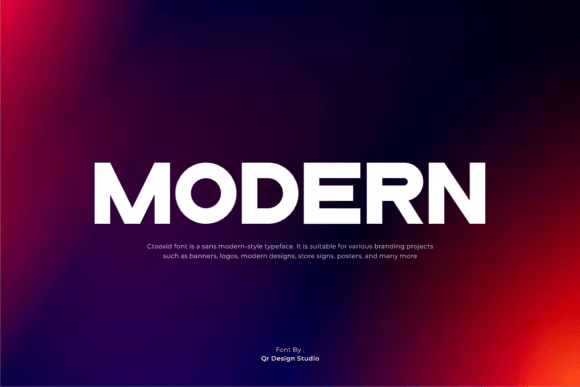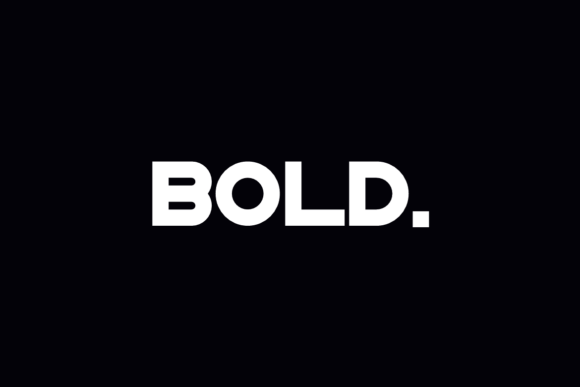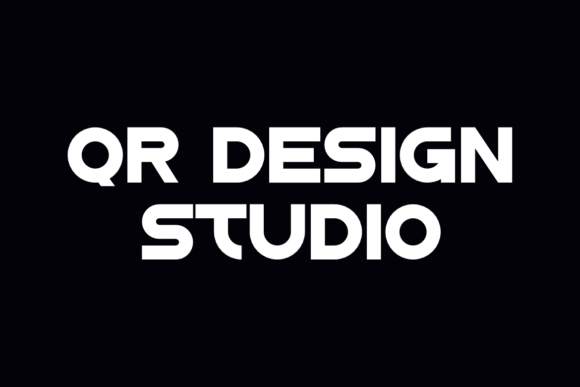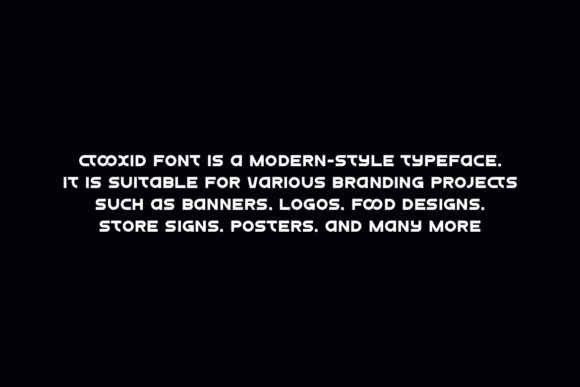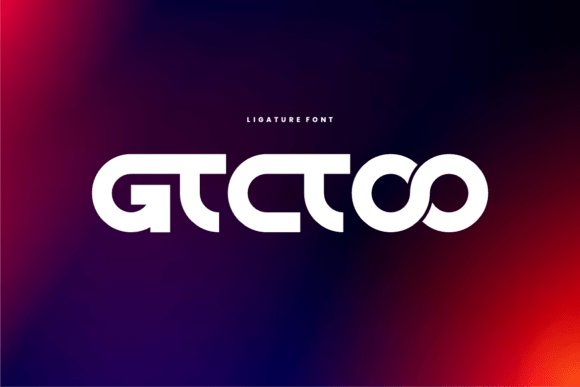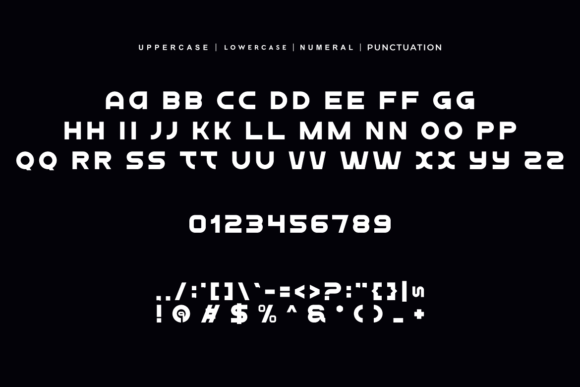
Ctooxid Font: The Bold and Authentic Display Typeface for Your Branding Needs
In the world of typography, a font can make or break a design. When it comes to creating a lasting impression, designers and crafters need a typeface that exudes confidence, energy, and authenticity. This is where Ctooxid Font comes in – a bold and authentic display typeface that’s perfect for various branding projects, including logos, sports designs, and more.
What Makes Ctooxid Font Stand Out?
Ctooxid Font is a versatile typeface that stands out beautifully in a wide range of contexts. Its bold and authentic design makes it perfect for creating eye-catching logos, posters, and advertisements. The font’s unique characteristics and distinctive features make it an excellent choice for designers and crafters looking to add a touch of personality to their designs.
Key Features of Ctooxid Font
- Bold and Authentic Design: Ctooxid Font boasts a bold and authentic design that’s perfect for making a statement.
- Versatile and Flexible: This font is suitable for a wide range of design projects, from logos and branding to posters and advertisements.
- Easy to Read: Despite its bold design, Ctooxid Font is easy to read, making it perfect for use in various contexts.
Use Cases for Ctooxid Font
Ctooxid Font is perfect for a variety of design projects, including:
- Logo Design: Create a lasting impression with a bold and authentic logo that showcases your brand’s personality.
- Sports Designs: Add a touch of energy and excitement to your sports designs, from jerseys to posters and advertisements.
- Branding and Advertising: Use Ctooxid Font to create eye-catching advertisements, flyers, and brochures that grab attention.
- Posters and Signage: Create bold and eye-catching posters and signage that make a statement.
Why Choose Ctooxid Font?
With so many fonts available, why choose Ctooxid Font? Here are just a few reasons:
- Unique Design: Ctooxid Font boasts a unique and distinctive design that’s sure to make your designs stand out.
In conclusion, Ctooxid Font is a bold and authentic display typeface that’s perfect for various branding projects. With its unique design, versatility, and ease of use, this font is sure to become a staple in any designer’s toolkit. Whether you’re creating logos, sports designs, or advertisements, Ctooxid Font is the perfect choice for making a lasting impression.